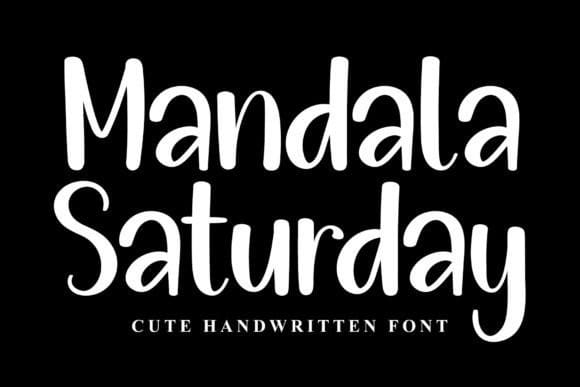
Mandala Saturday Font
Mandala Saturday Font is a neat and beautiful handwritten font described by an elegant touch, perfect for your favorite projects. Fall in love with its incredibly distinct and timeless style, and use it to create spectacular designs!